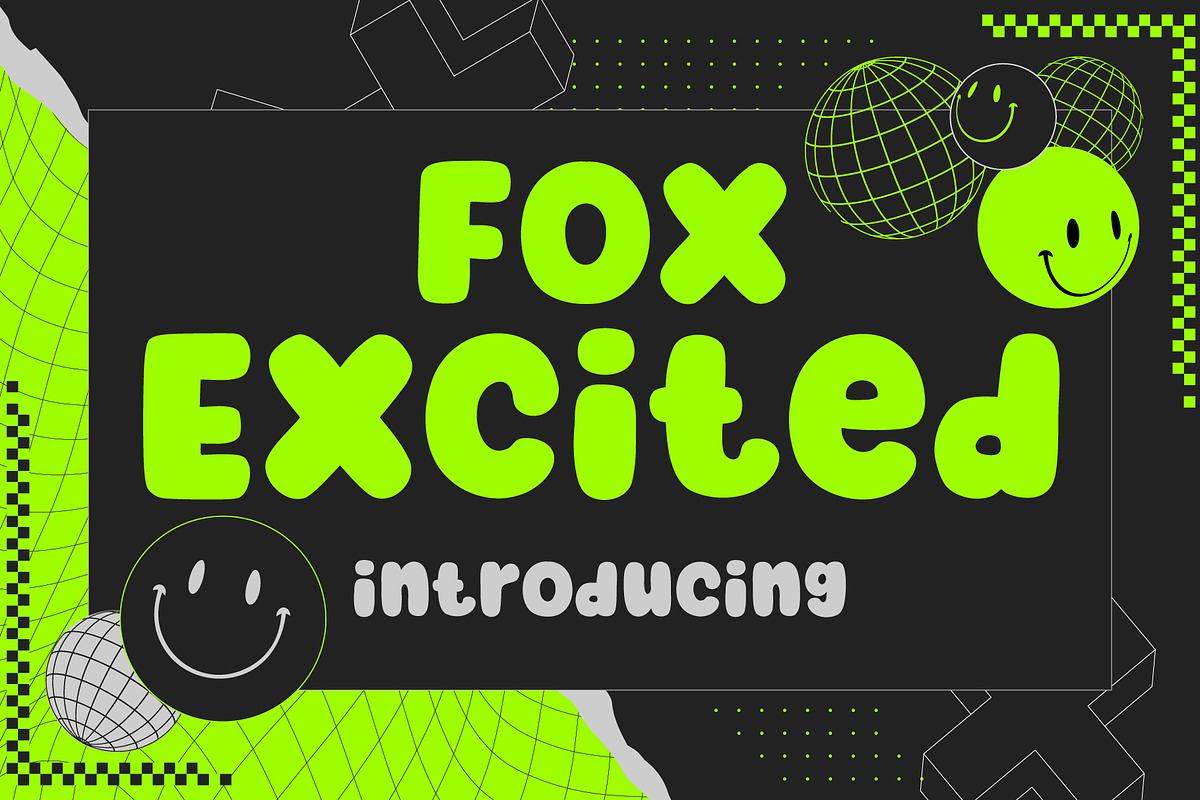
Fox Excited Font Free Download is a playful and energetic typeface bursting with personality. Designed to capture the joy and liveliness of a curious fox, this font is perfect for children’s books, toy packaging, party invitations, cartoon branding, and any project that needs a spark of fun and excitement.
With its bouncy letterforms, hand-drawn charm, and friendly curves, Fox Excited Font Free Download brings movement and magic to your designs. Whether you're creating educational content, playful logos, or whimsical graphics, this font adds a dynamic and cheerful vibe that’s impossible to ignore.
Perfectly readable and irresistibly fun, Fox Excited thrives in colorful environments with bold illustrations and imaginative themes. It’s your go-to font when you want to make young audiences smile—or bring out the inner child in adults too!
So let your creativity leap like a fox—full of joy, full of style—with this lively and lovable font.